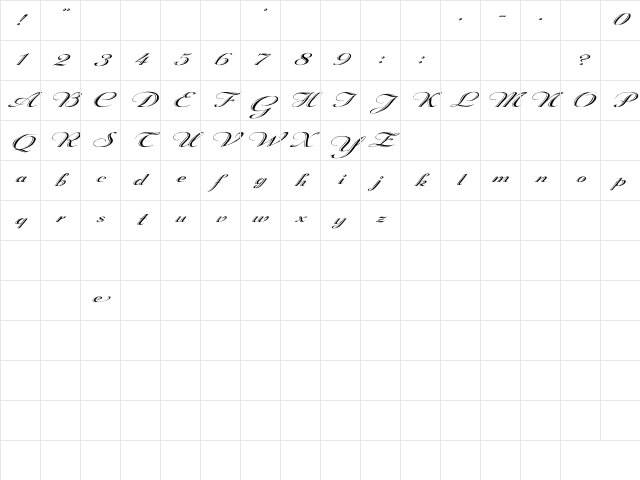
Complete Rechtman Ex plain italic Plain Italic glyph index. Displaying only characters natively supported by Rechtman Ex plain italic Plain Italic font.
Rechtman Ex plain italic is a composed and adaptable typeface that performs quietly and consistently across a wide range of design contexts. The slanted form adds forward momentum and visual energy.